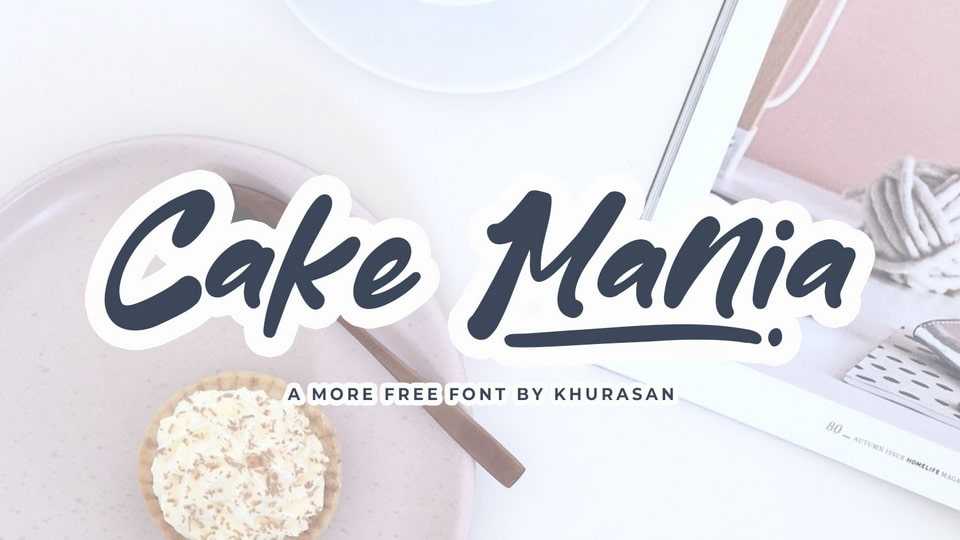
Download Cake Mania font, an authentic, hand drawn brush typeface made with real marker pens. With its dynamic and natural look, Cake Mania font is ready to make a big impression.